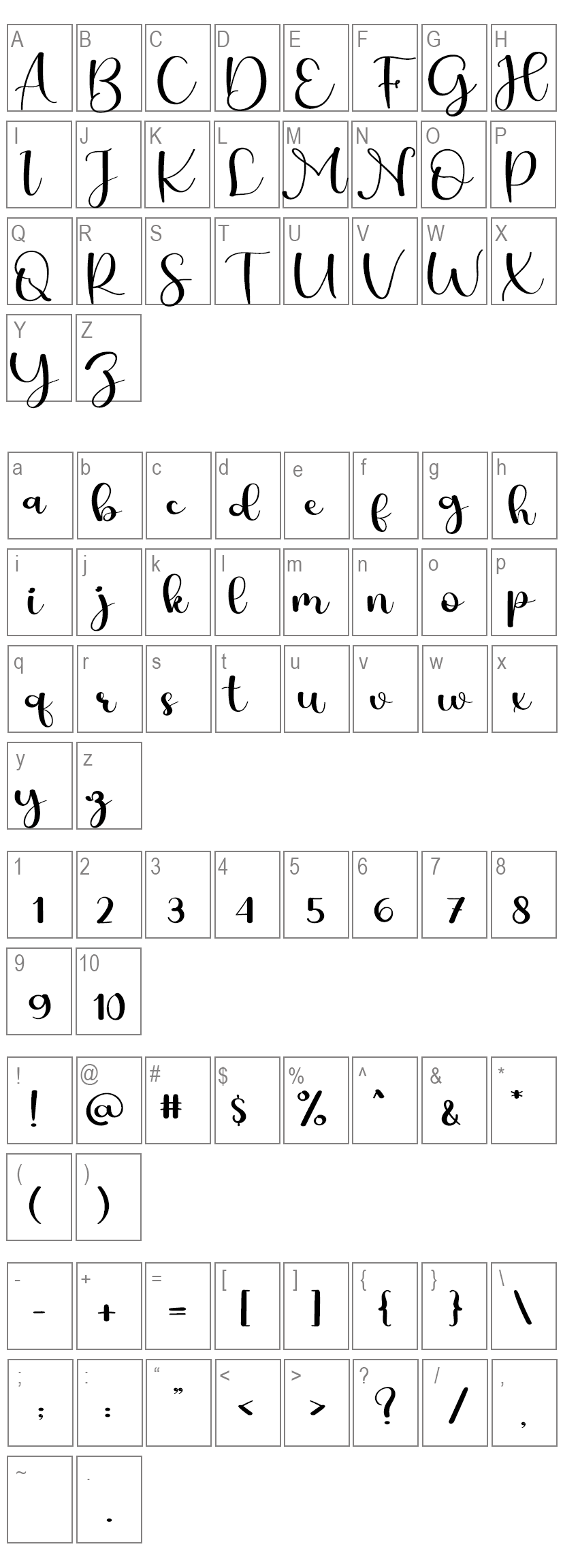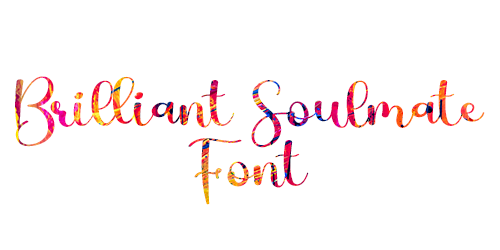
Brilliant Soulmate Font
CategoryHandwritten, Script
Best UseInvitations, Logos, Print
Brilliant Soulmate Font is a stylish elegant typeface designed to bring a unique touch to your creative projects. With its handcrafted feel and modern appeal, this font is perfect for everything from wedding invitations to logos. Its versatility makes it a favorite for designers looking to add sophistication and personality to their work.
Key Features of Brilliant Soulmate Font:
• Elegant and Modern: Brilliant Soulmate combines contemporary design with a delicate, hand-lettered feel.
• Versatile: Ideal for a wide range of projects such as invitations, branding, and social media graphics.
• Highly Legible: Maintains readability at both large and small sizes.
Uses of Brilliant Soulmate Font:
• Wedding Invitations & Event Cards: Adds a romantic and personal touch to any special occasion.
• Branding & Logos: Perfect for creating a unique brand identity with a modern, elegant twist.
• Social Media: Elevate your posts with a stylish, on-trend look.
• Print Media: Ideal for flyers, posters, and business cards that need to stand out.